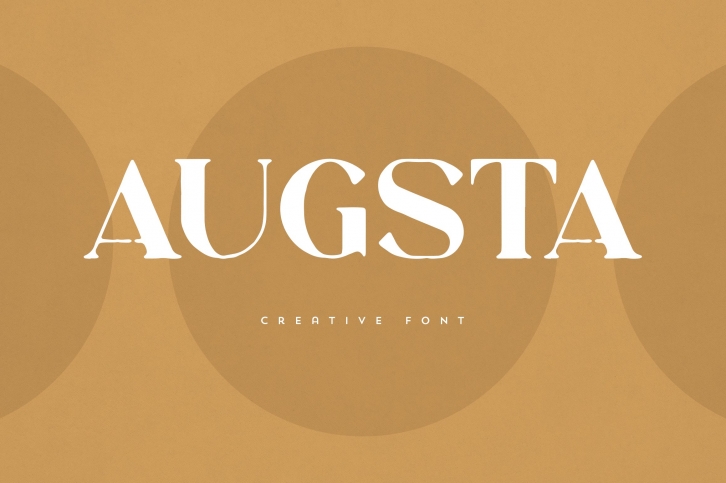
Augusta is a beautiful font that was designed by VPcreativeshop. It's a great choice for designers and creatives who need such a font. It was released on October 18, 2022 and the file size is 15.9 MB. Augusta may give a more youthful, expressive and casual look to your project. It is a very beautiful, refined, elegant, and high-quality font.